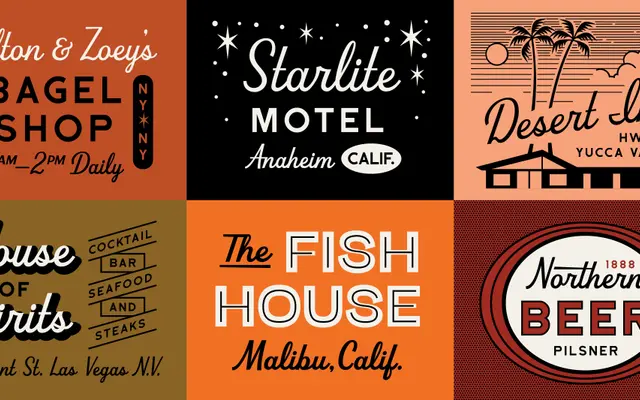
Beverly Drive Right
Fort Foundry · Amy Hood
A right-leaning retro script by Amy Hood with a low x-height and two weights suited to packaging, branding and occasion print.
Designed by Amy Hood, Beverly Drive Right is a casual retro script with a slightly exaggerated cap height and low x-height that gives it a mid-century feel. Two weights, Regular and Bold, carry the family across a wide range of uses from restaurant logos and beer labels to holiday cards and invitations. The accompanying left-leaning Beverly Drive variant completes the pair for designers wanting directional contrast.
The foundry classifies it as a script; it is a retro-styled, right-leaning cursive with a low x-height and exaggerated cap height, consistent with mid-century American casual scripts.